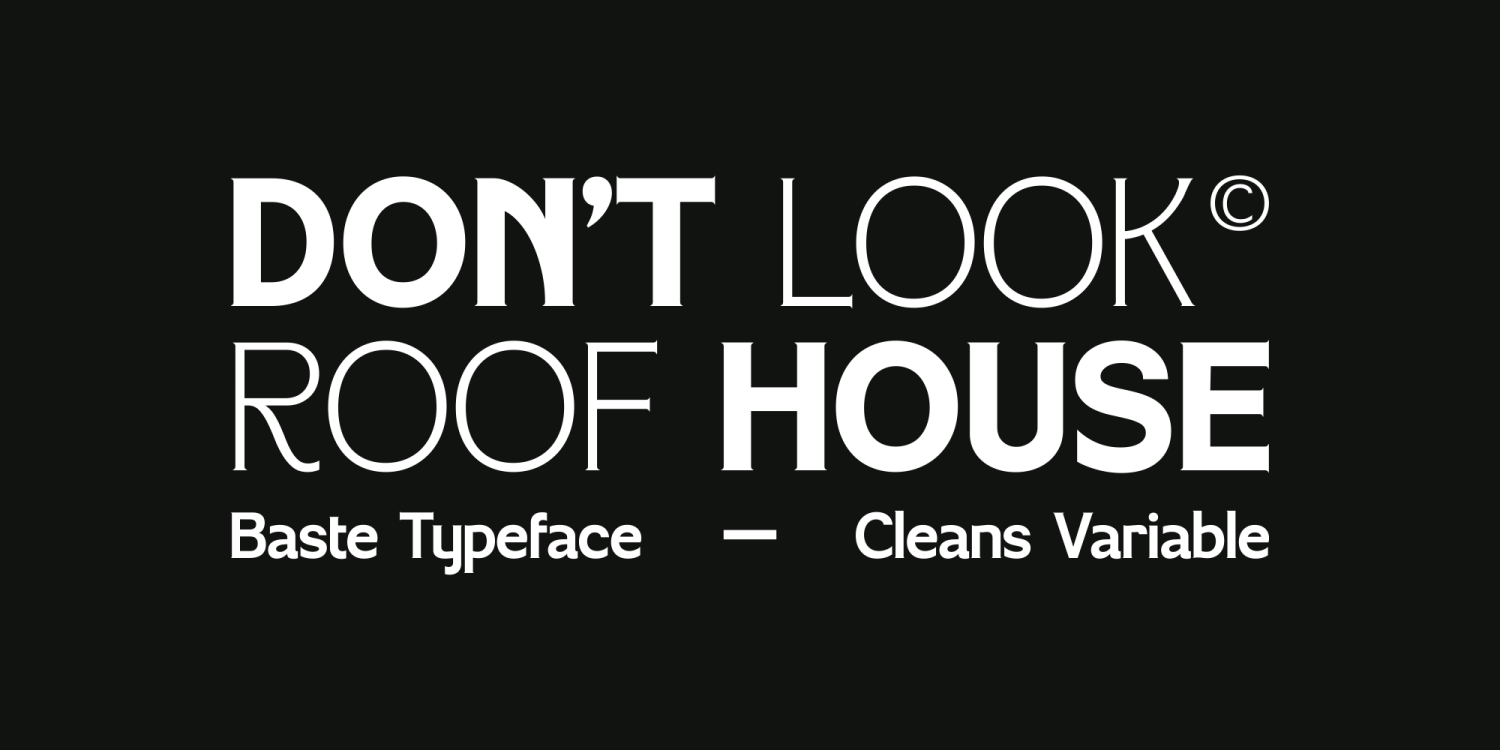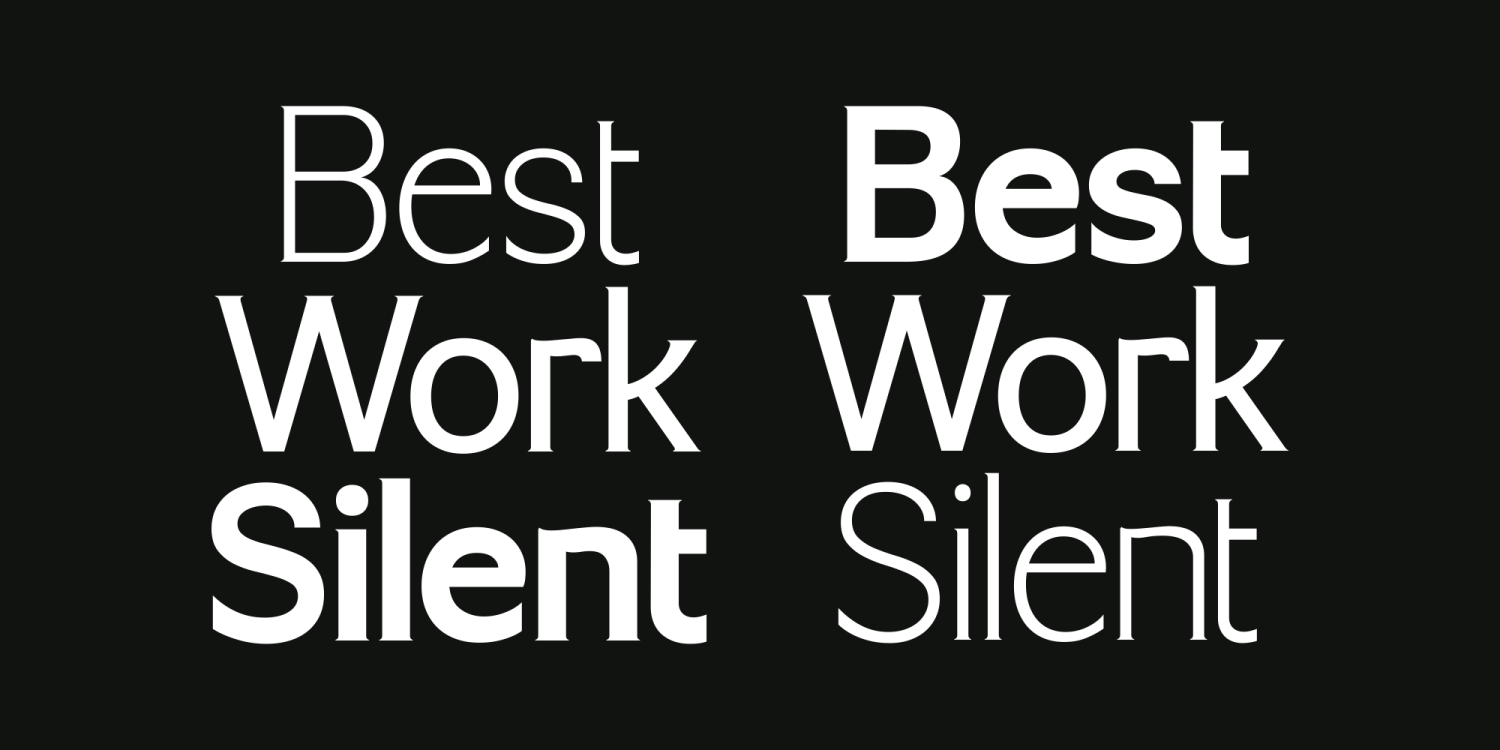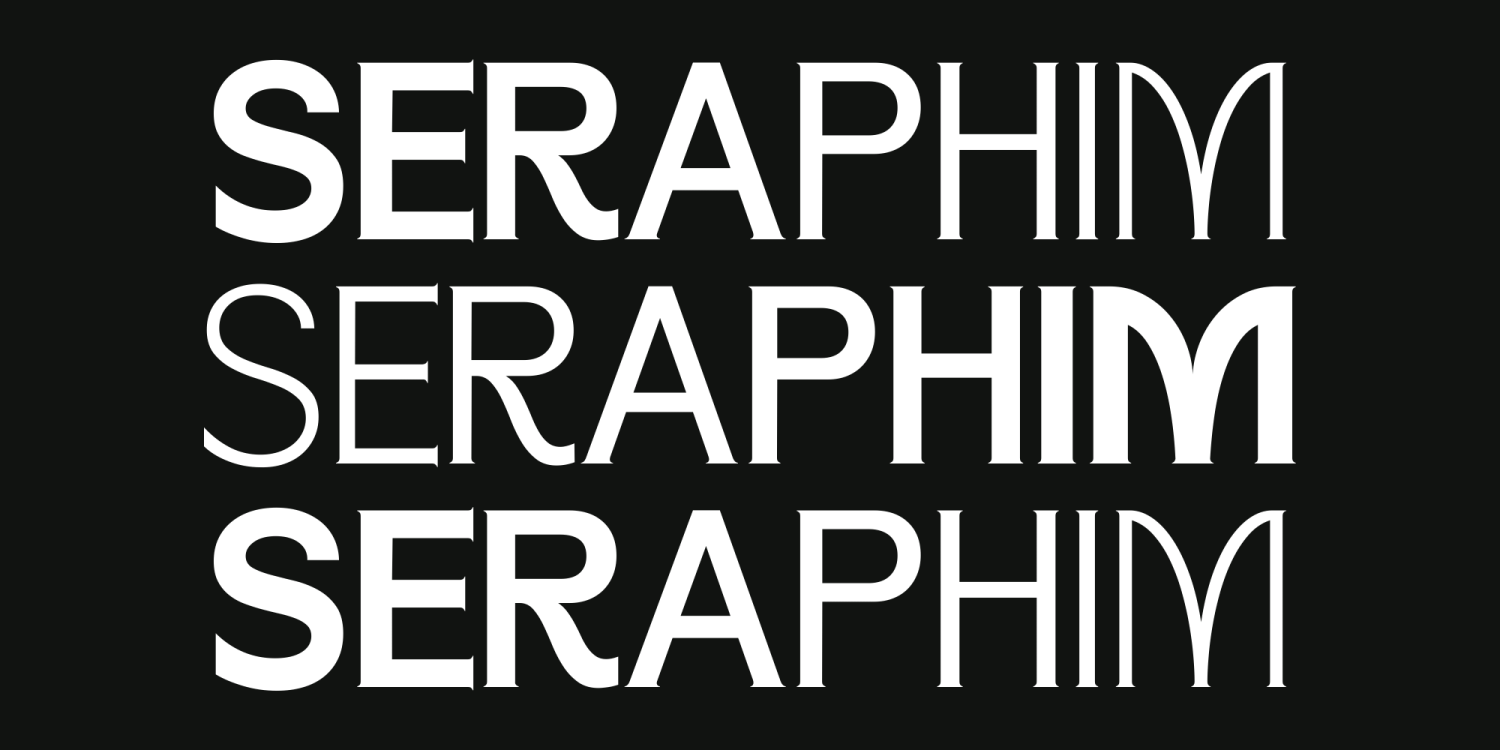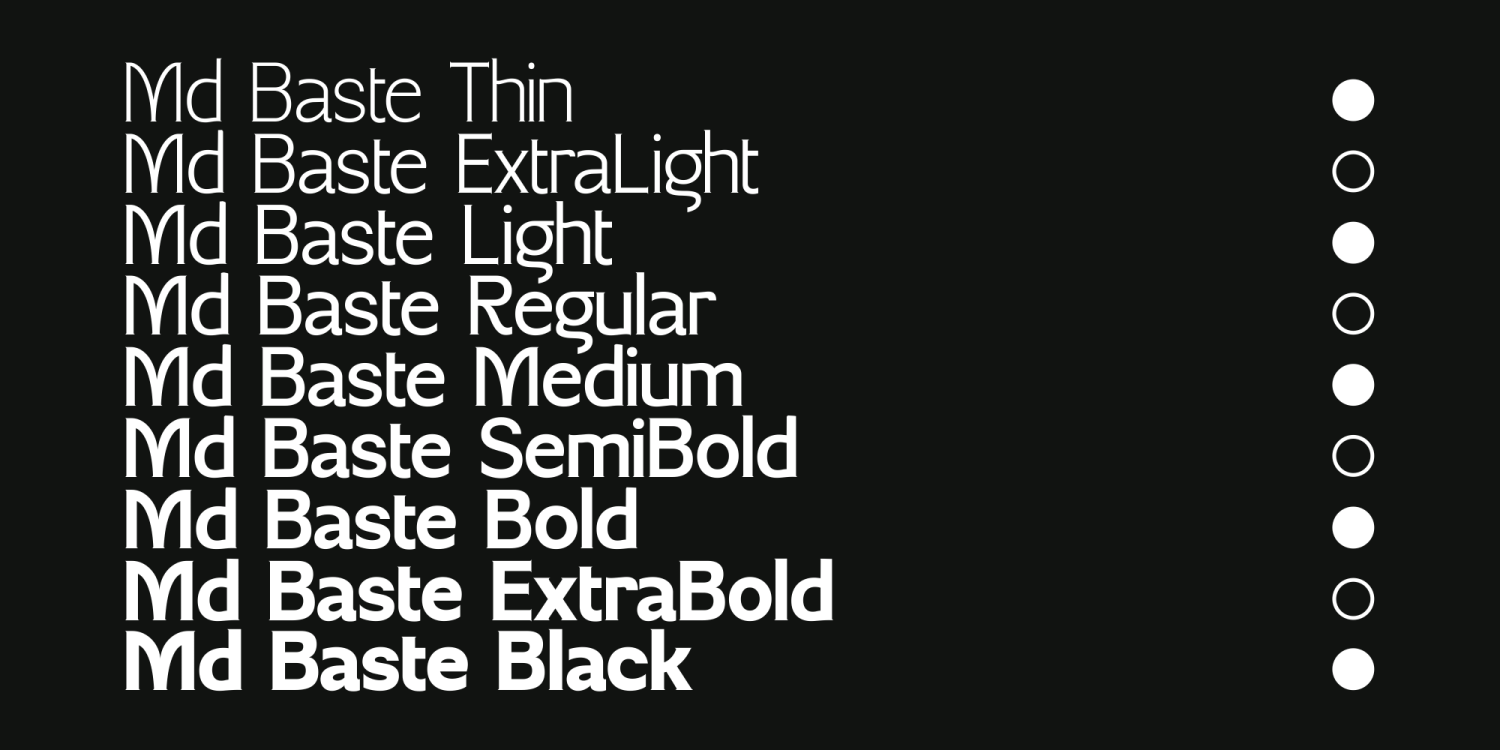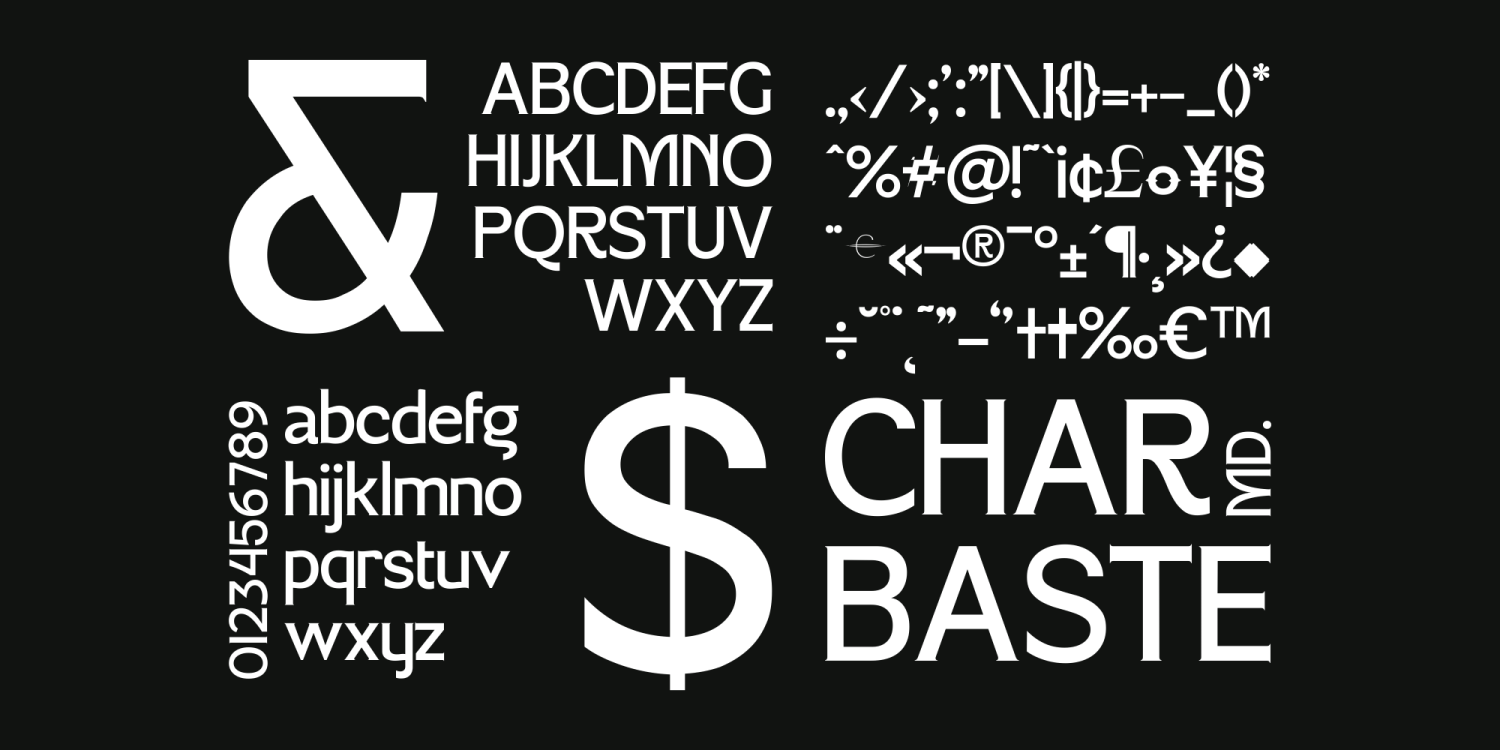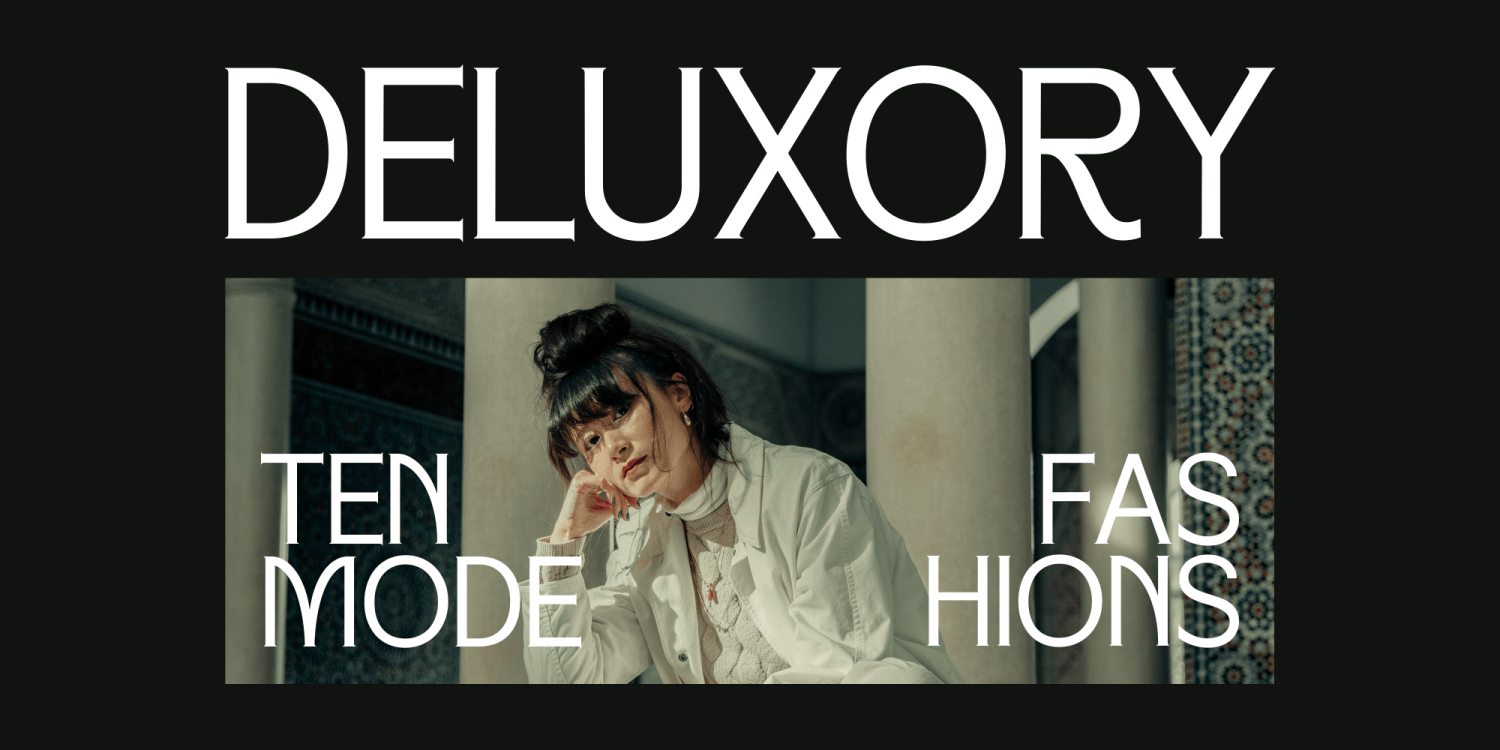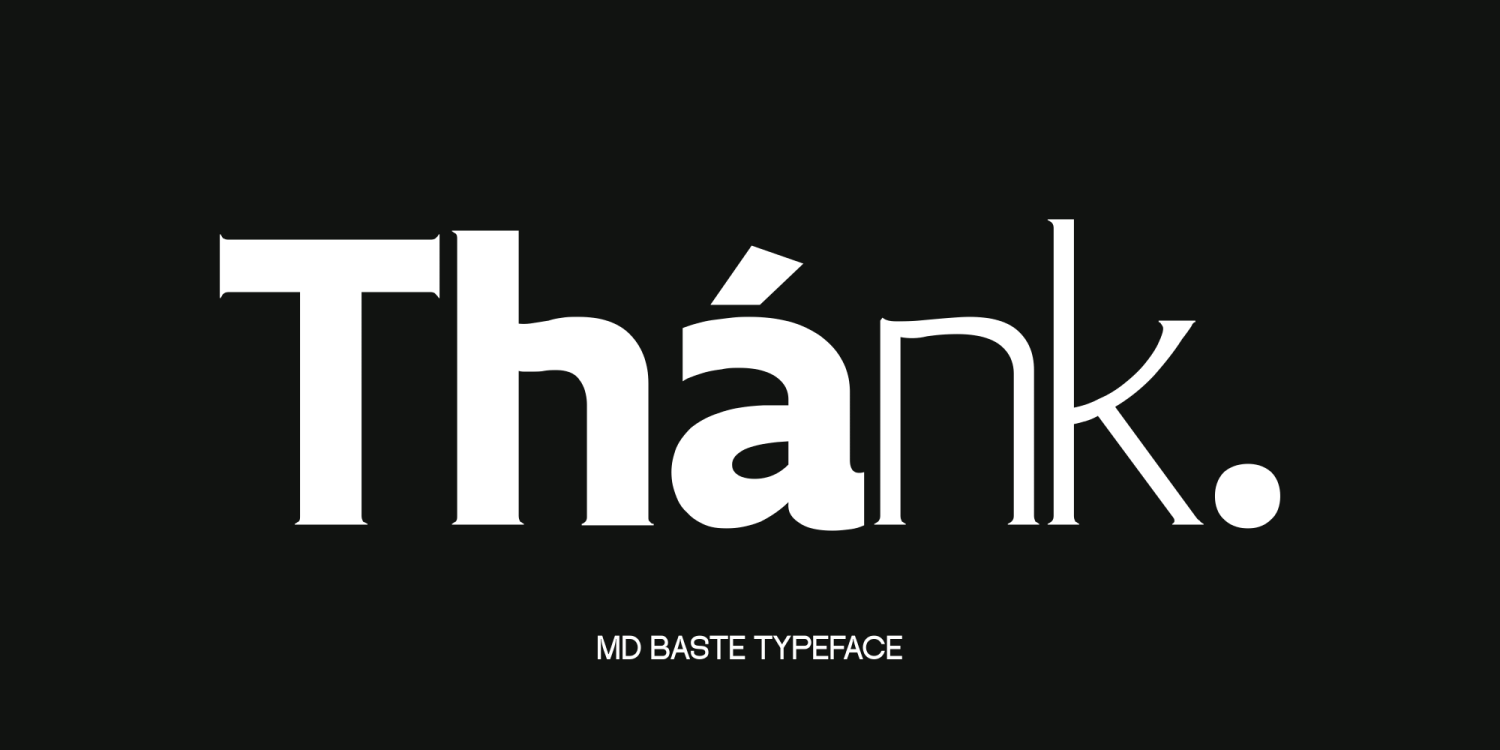
Md Baste
Font Family by Marvadesign
Introducing Md Baste is an elegant serif font, designed to evoke a sense of sophistication and refinement. Its semi-condensed form lends itself particularly well to headlines, titles, and other prominent text elements, balancing style with practicality. The font offers a versatile range of weights through its variable options, including Thin, ExtraLight, Light, Regular, Medium, SemiBold, Bold, ExtraBold, and Black. This wide selection of weights allows designers to achieve varied typographic emphasis, from delicate, airy text using the lighter weights to strong, impactful visuals with the bolder options. The serif details of Md Baste add a classic touch, making it suitable for projects that require a blend of tradition and modernity. Ideal for both print and digital formats, Md Baste ensures readability and elegance in equal measure.